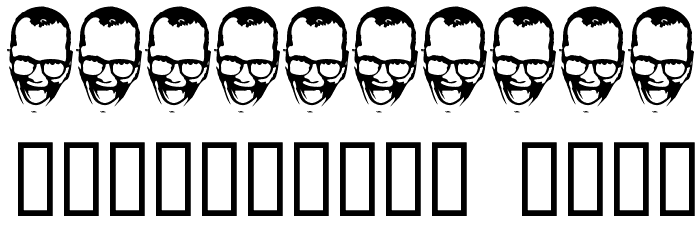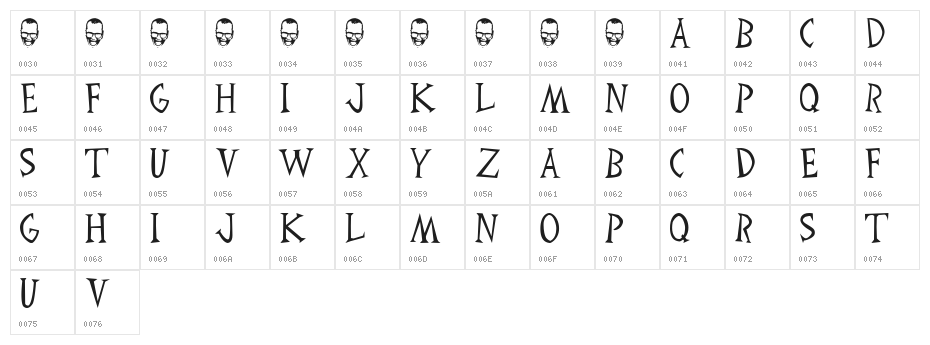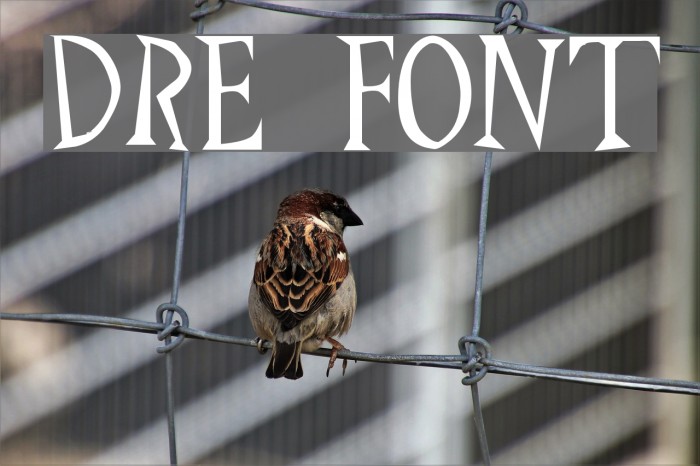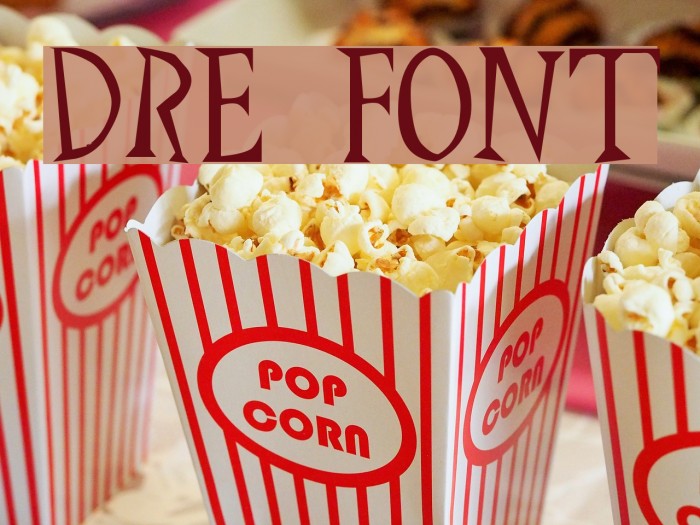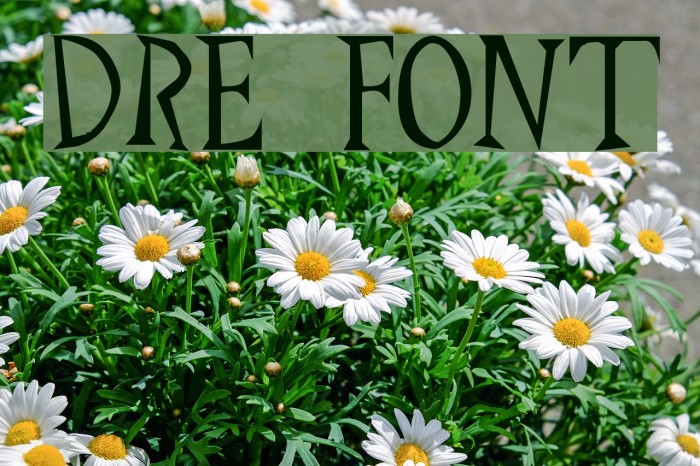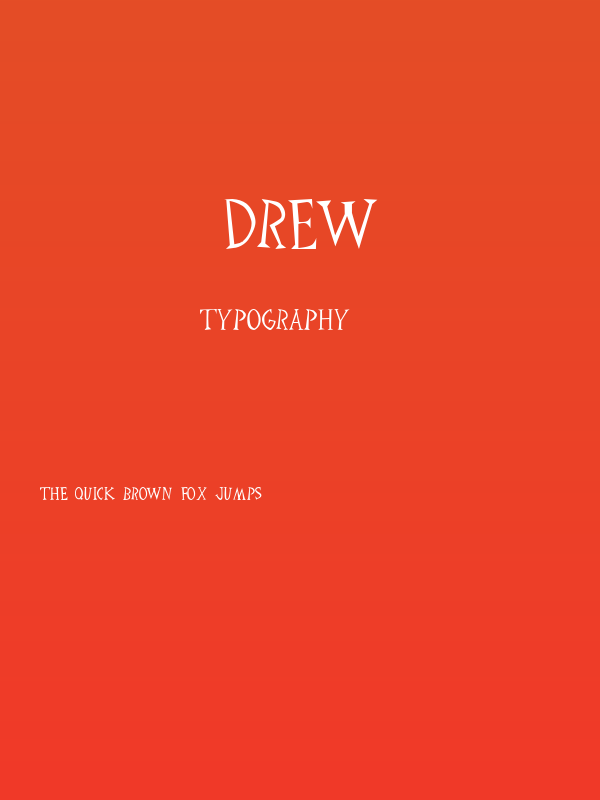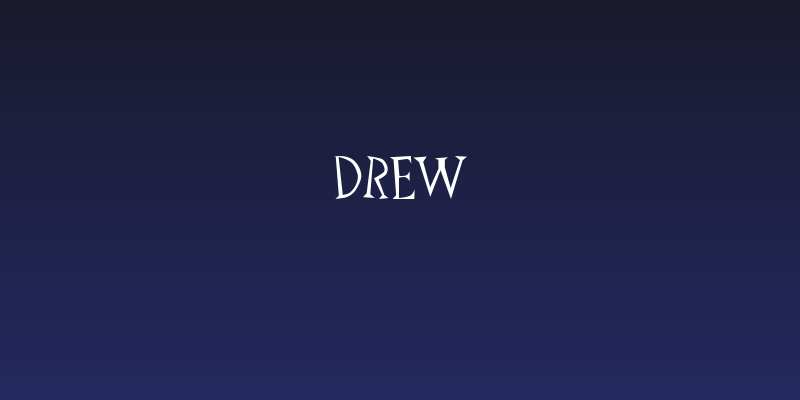
Drew Font
Drew Description
This font features a unique and playful design with exaggerated serifs and a whimsical flair. The uppercase letters have a distinct medieval or fantasy-inspired style, characterized by sharp angles and varying stroke widths. The lowercase letters maintain the same playful aesthetic, with a slightly more rounded appearance. The overall design is bold and eye-catching, making it suitable for creative and artistic projects. The font's distinctive style is further emphasized by its decorative elements, which add a touch of personality and charm.
| Proposed Projects | Ideal for fantasy-themed posters, book covers, video game graphics, and creative branding. |